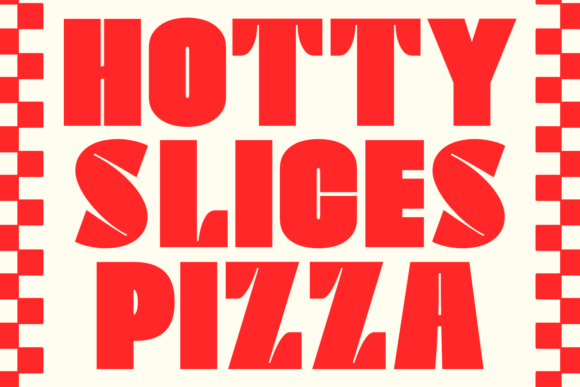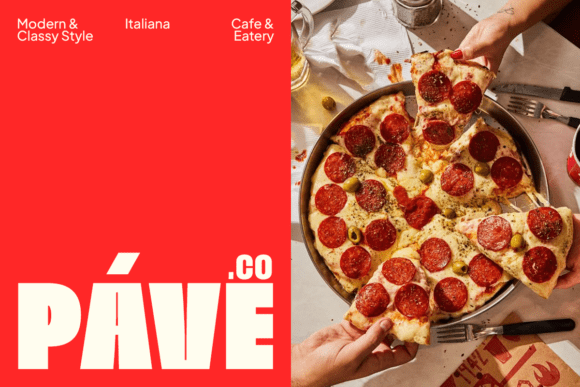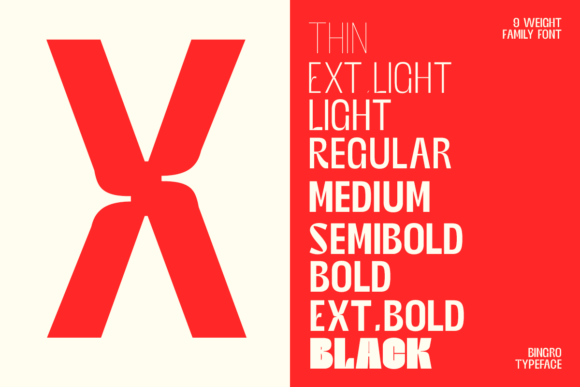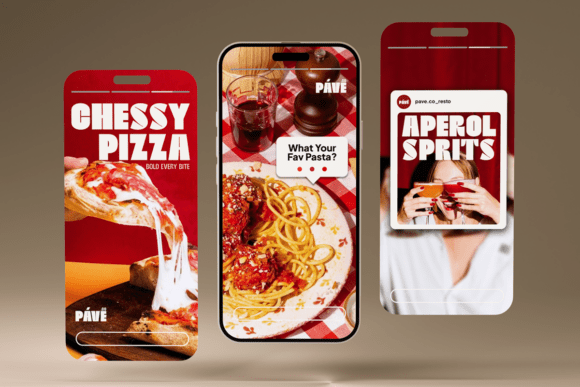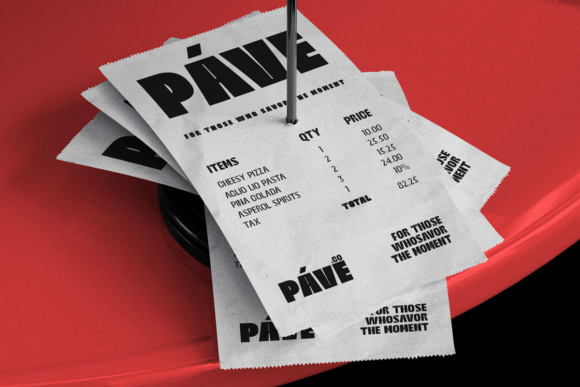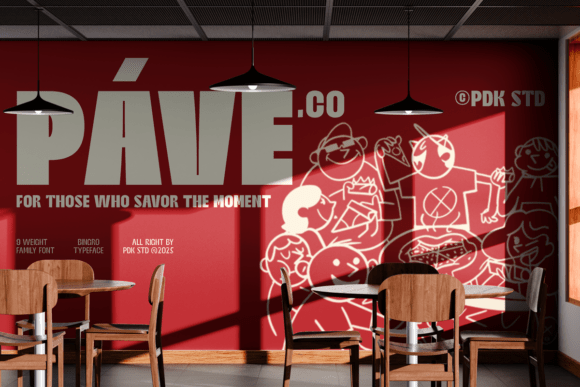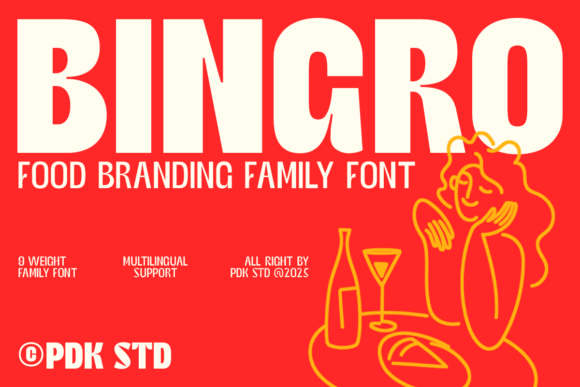
The Bingro Font: A Delicious Addition to Your Design Toolbox
I’ll never forget the struggle I faced while working on a project for a local café. My client wanted a font that would make their menu stand out, but I was stuck with the usual suspects – fonts that were either too bland or too over-the-top. That’s when I stumbled upon the Bingro font, a bold and flavorful food branding family font that instantly caught my attention. In this article, I’ll share my experience with Bingro, its features, and how you can make the most of it in your designs.
A Honest Review of Bingro Font
What I Love About Bingro ✨
- 💥 **Expressive styles**: Bingro comes with 9 styles, ranging from Thin to Black, giving you a wide range of options to choose from.
- 📈 **Variable Font**: The font also comes with a Variable Font, allowing for smooth weight transitions and precise control over your typography.
- 🍴 **Food-friendly design**: Bingro’s chunky shapes, soft curves, and eye-catching forms create a fun and appetizing look, perfect for restaurants, cafés, and food-related branding.
While Bingro is an excellent font, there are a few minor limitations to consider:
- 🤔 **Limited use outside food branding**: Bingro’s design is specifically tailored for food-related branding, which might make it less suitable for other industries.
- ⚠️ **Occasional kerning issues**: As with any font, you might encounter some kerning issues, especially when using the font at smaller sizes.
The Story Behind Bingro Font
Bingro was designed with the goal of creating a font that would bring energy, warmth, and personality to food-related branding. The design team behind Bingro drew inspiration from the world of food, combining chunky shapes, soft curves, and eye-catching forms to create a unique and appetizing look.
Q: What is the best way to use Bingro for restaurant menus?
A: For restaurant menus, try pairing Bingro with a clean, modern sans-serif font for optimal readability. Use Bingro’s bold styles for headings and titles, and its lighter styles for body text.
Q: Can I use Bingro for non-food branding projects?
A: While Bingro is designed specifically for food-related branding, its unique design makes it suitable for other creative projects. Feel free to experiment with Bingro in different contexts, but keep in mind its food-friendly design might not be the best fit for every industry.
Q: Is Bingro suitable for digital interfaces?
A: Yes, Bingro is designed to work well in digital interfaces. Its Variable Font feature allows for smooth weight transitions, making it perfect for responsive design and modern workflows.